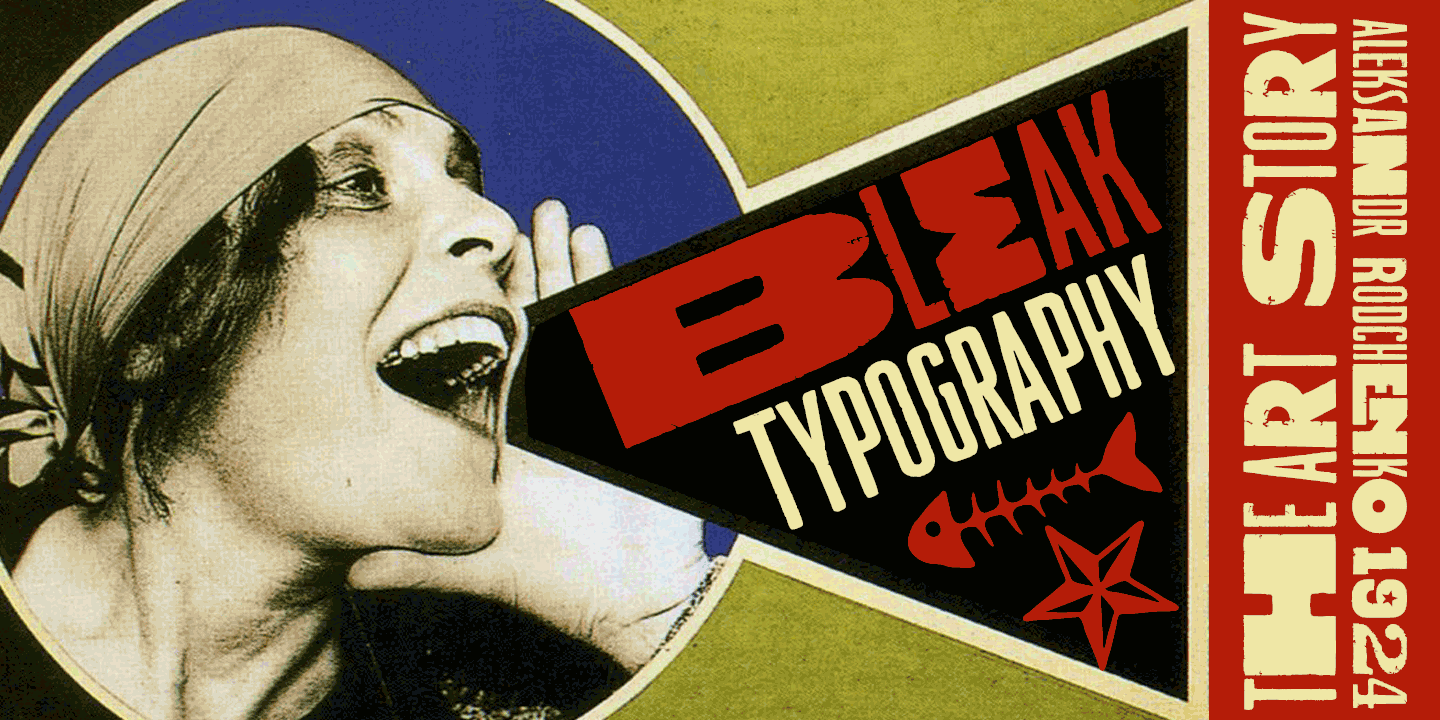
Bleak Font Free Download delivers a haunting typeface that captures the essence of desolation and atmospheric darkness with compelling visual impact. However, for commercial use, you must purchase this font. You can download it for free for testing purposes only.
Bleak Font excels in moody design applications including psychological thriller movie posters, dystopian book covers, dark ambient music albums, post-apocalyptic game interfaces, noir film credits, melancholic art exhibitions, atmospheric horror projects, abandoned place photography, minimalist dark branding, and somber memorial designs. This evocative typeface brings emotional depth to dramatic projects.
What makes Bleak Font truly exciting is its masterful ability to convey emptiness and isolation through carefully distressed letterforms. The font features weathered, deteriorated characters with subtle imperfections that suggest abandonment and decay while maintaining excellent readability. Its melancholic atmosphere and haunting presence make it perfect for projects exploring themes of solitude, introspection, and the darker aspects of human experience.
The Bleak Font family typically includes Regular weight with potential variations featuring different distress levels, eroded effects, and atmospheric treatments. These options provide designers with versatile mood-setting capabilities while maintaining the font's distinctive desolate character and emotional resonance across various media.
Whether you're creating atmospheric branding, designing psychological content, or developing introspective artistic projects, Bleak Font Free Download offers the emotional authenticity and visual impact that dramatic projects require. Its exceptional ability to evoke feeling and create atmosphere makes it invaluable for designers seeking to create memorable, emotionally-charged designs that explore deeper themes of human existence and environmental storytelling.